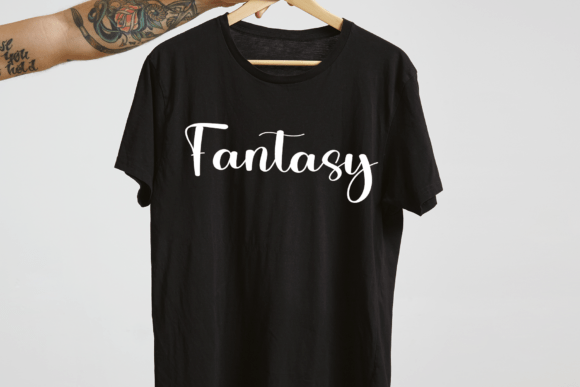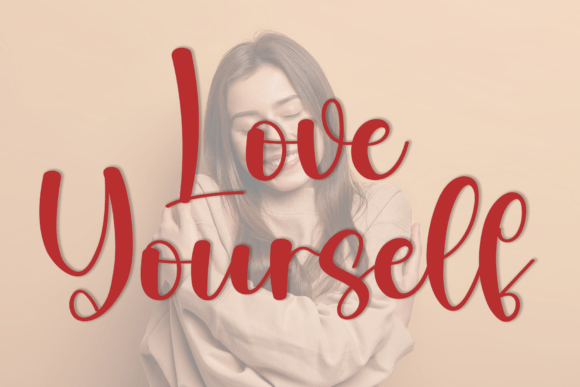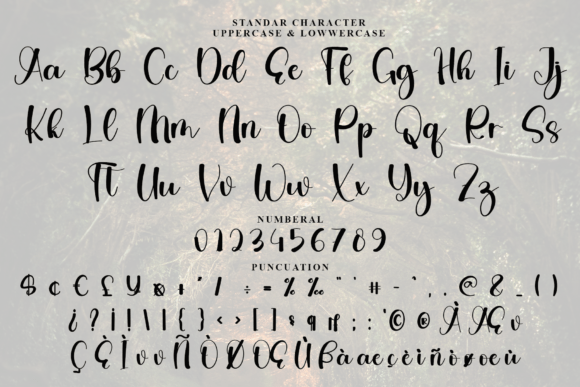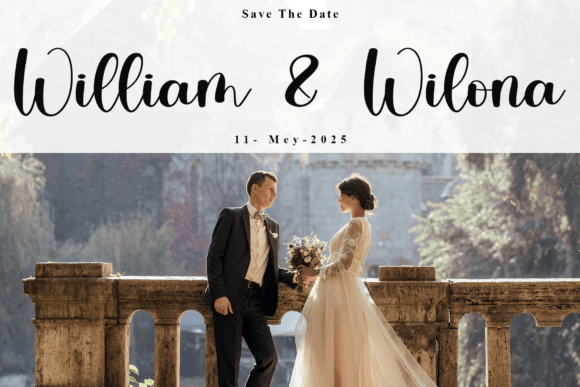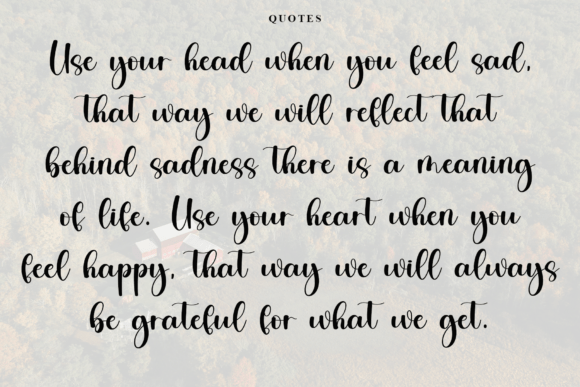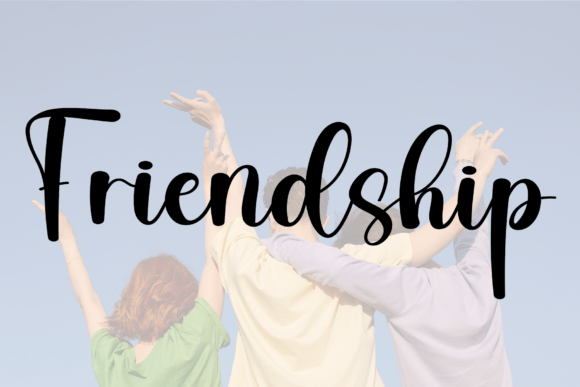
The Perfect Blend of Style and Substance
Have you ever stared at a blank page, trying to bring a creative vision to life? You know the feeling – the blank slate, the endless possibilities, and the pressure to make it all come together in a way that’s truly breathtaking. It’s in these moments that the right tools can make all the difference. And for designers, there’s one font that stands out from the rest: Aesthetic Font.
This stylish handwritten font is more than just a pretty face – it’s a masterclass in contemporary design. With its timeless classic calligraphy inspiration, Aesthetic Font brings a level of sophistication and elegance to any project. Whether you’re a seasoned pro or just starting out, this font is a valuable addition to your toolkit – and a great way to elevate your creative work to the next level.
Aesthetic Font Key Features
- Unique Characteristics: Features a unique blend of modern and vintage elements, making it perfect for creating eye-catching and elegant designs.
Aesthetic Font Review
Overall, I’m impressed with the Aesthetic Font, but as with any design tool, it’s not perfect. Here’s my honest review.
- Unique and visually appealing design: The font has a distinct aesthetic that sets it apart from other fonts.
- Limited font sizes: The font doesn’t offer a wide range of font sizes, which can be a limitation for complex designs.
- Not suitable for small text: The font is best used for headings and titles, as the text can become difficult to read at smaller sizes.
The Aesthetic Font is a solid choice for designers looking to add a touch of elegance to their work. While it may have some limitations, its unique design and high level of customization make it a valuable addition to any design toolkit.
Tips for Getting the Most Out of Aesthetic Font
Use Aesthetic Font in conjunction with other design elements, such as bold lines, geometric shapes, and pastel colors, to create a cohesive and visually appealing design. Experiment with different font sizes and styles to create a sense of hierarchy and balance. Use Aesthetic Font to add a touch of elegance and sophistication to your design.
Aesthetic Font is ideal for designing branding materials, such as logos, business cards, and letterheads. It is also suitable for creating social media graphics, posters, and flyers. Use Aesthetic Font to add a touch of sophistication and elegance to your design, whether it’s for a personal project or a professional client.
Alternatives to Aesthetic Font for Designers
Great Vibes is a modern calligraphy font that is perfect for creating a unique and elegant design. It is ideal for use in invitations, wedding stationery, and other high-end designs where a touch of sophistication is required.
Compared to Aesthetic Font, Great Vibes has a more refined and precise feel, making it suitable for designs that require a high level of detail.